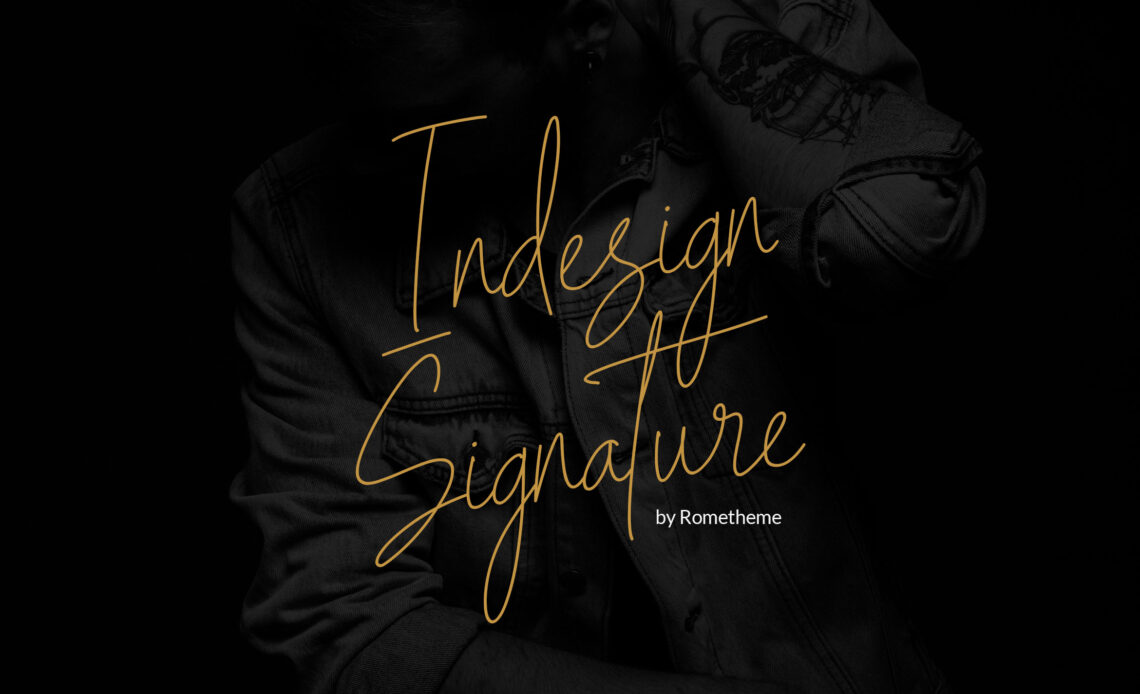
Unleash the elegance and charm of your designs with Indesign Signature Font, an exquisite handwritten script crafted to evoke beauty and sophistication. This captivating font with its graceful glyphs and timeless style will transform your creative projects into true masterpieces.
Indulge in the versatility of Indesign Signature, a font that seamlessly adapts to a wide spectrum of design needs. Whether you're crafting heartfelt wedding invitations, creating eye-catching social media posts, designing stylish logos, or adding a personal touch to your branding materials, this font is your perfect companion.
With Indesign Signature, you'll have the power to elevate your designs effortlessly. Its elegant curves and sweeping strokes will add a touch of sophistication and charm, while its impeccable legibility ensures that your message shines through with clarity. Prepare to captivate your audience with designs that exude timeless elegance and leave a lasting impression.
Step into a world of creativity and expression with Indesign Signature. Whether you're a seasoned designer or just starting your creative journey, this font will unlock new possibilities and inspire you to create designs that speak to the heart. Its intuitive design makes it easy to use, allowing you to focus on bringing your vision to life.
Don't settle for ordinary fonts that blend into the background. Embrace the beauty and uniqueness of Indesign Signature and watch your designs transform into captivating works of art. Your creativity will flourish as you explore the endless possibilities this font offers, leaving your audience mesmerized by the elegance and sophistication of your designs.
Indesign Signature is not just a font; it's an expression of your individuality and creativity. With its enchanting style and versatility, it empowers you to make a statement that resonates with your audience. It's the perfect choice for those who seek to create designs that captivate, inspire, and leave an indelible mark on the beholder.